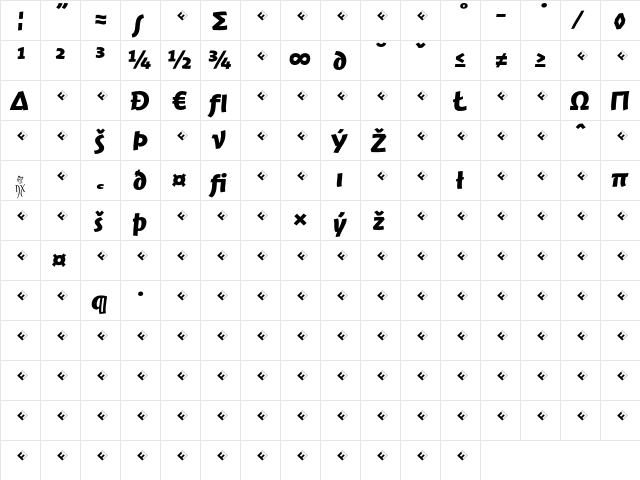
JambonoTF-BoldExpert Regular Font Preview
JambonoTF-BoldExpert Regular
Design Context for JambonoTF-BoldExpert Typeface
JambonoTF-BoldExpert is a composed and adaptable typeface that performs quietly and consistently across a wide range of design contexts. Its bold stroke weight gives it real presence on the page.